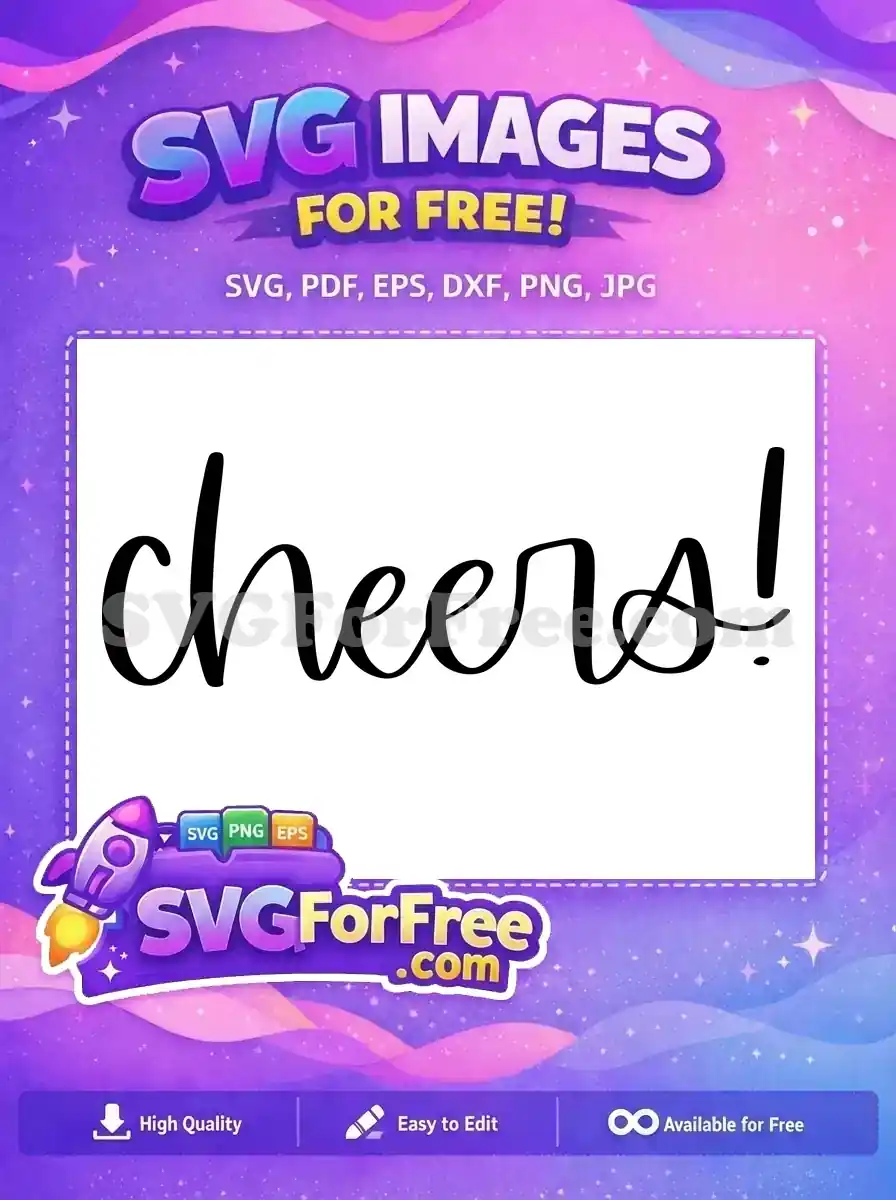
Free Cheers Script Font Free Celebration T shirt Quotes Free SVG – Instant Download
Celebratory free typography design featuring the word Cheers! in a flowing, elegant script.
Free Cheers Script Font Free Celebration T shirt Quotes Free SVG